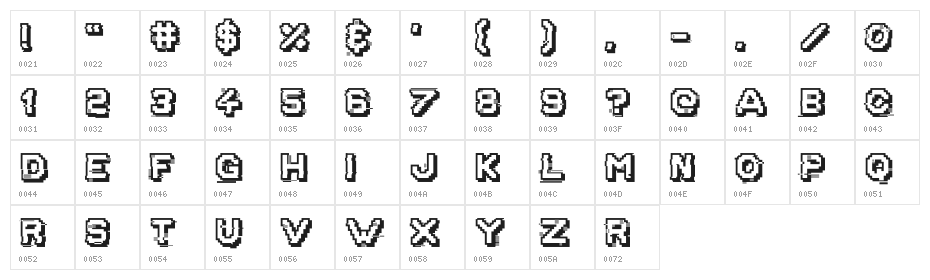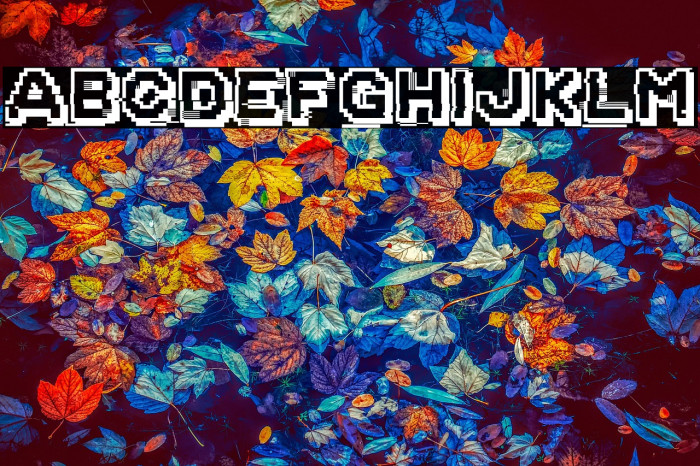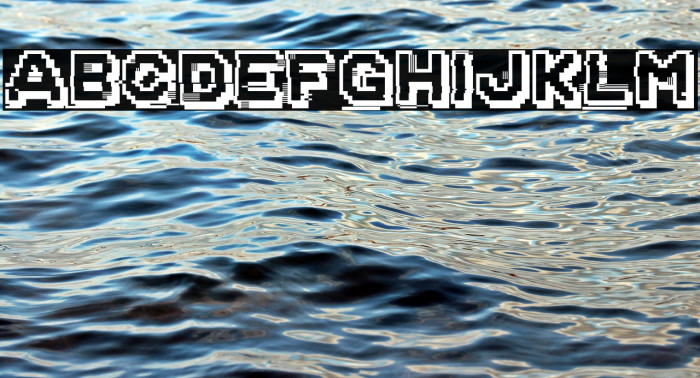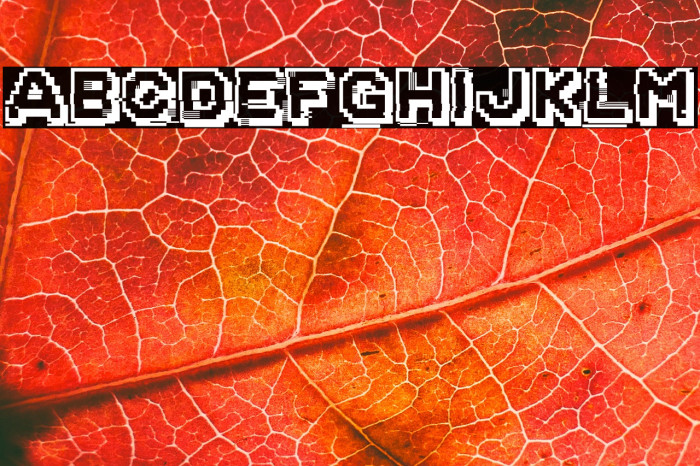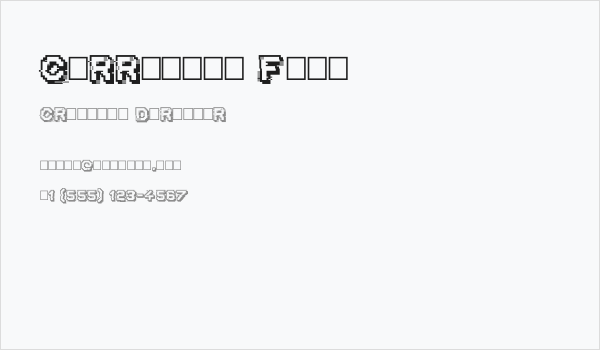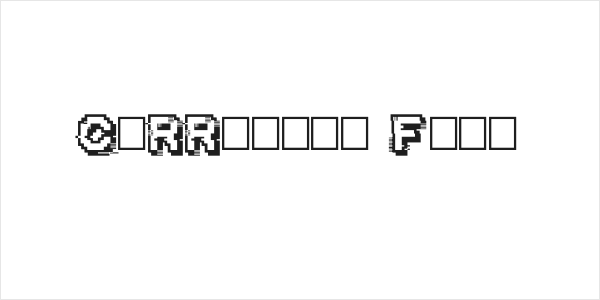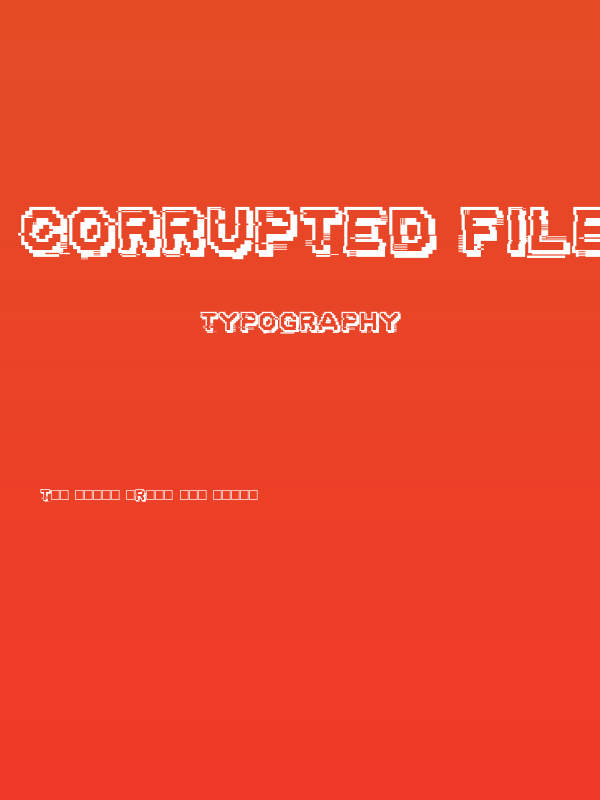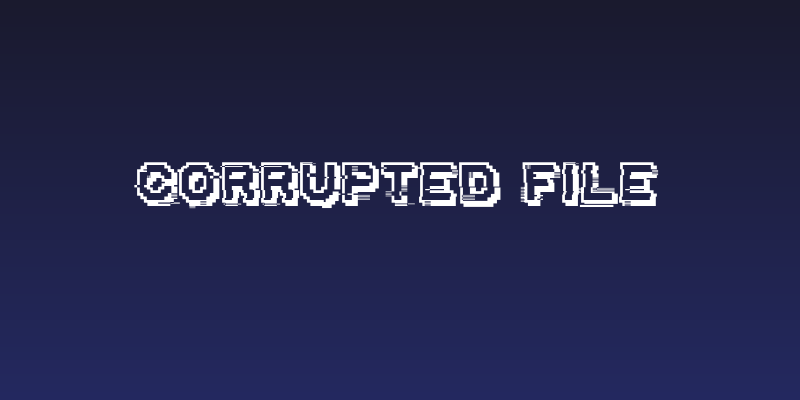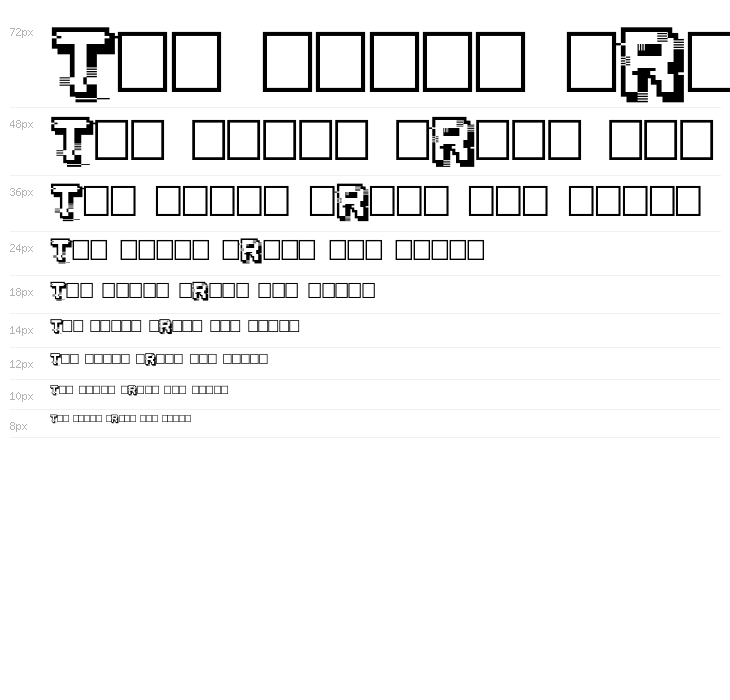
Corrupted File Font
Corrupted File Description
This font features a bold, pixelated style reminiscent of retro video games or digital displays. Each character is constructed with a blocky, geometric design that gives it a distinct, nostalgic appearance. The font is highly legible due to its thick strokes and clear separation between characters. The uppercase and lowercase letters maintain a consistent style, with the numerals and special characters following suit. This font's unique aesthetic makes it ideal for projects that aim to evoke a sense of nostalgia or a digital, tech-oriented theme.
| Overall Style | Retro, Digital |
| Proposed Projects | Ideal for video game design, retro-themed posters, digital art, and tech-related branding. |